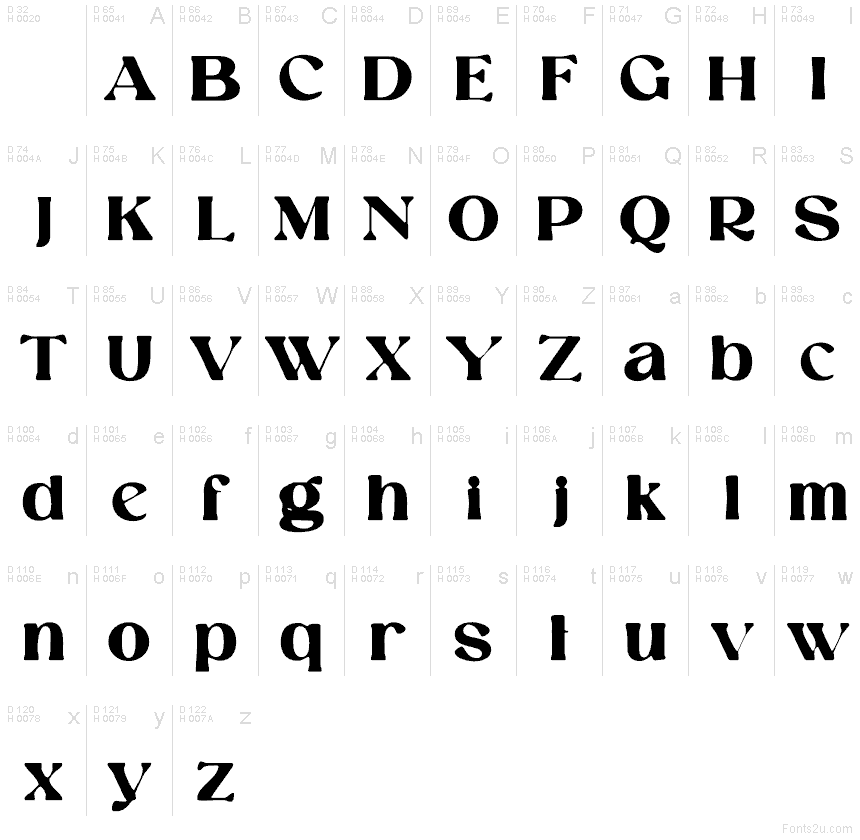
RaginyBlur-Regular Demo
Raginy font is a compelling expanded serif typeface characterized by its unusual shapes and unique rebellious spirit. Raginy is versatile, striking, and carries a vintage influence that can bring drama to any of your projects. With a strong presence visible in its bold weight, the font captivates with its visual balance between rounded serifs and unconventional letterforms.
Download this free expanded serif font for use in video game design, especially fantasy games with characters and dragons that require unique scripts. Raginy can also look great on posters dedicated to movies or plays like Romeo & Juliet, Lady Macbeth, etc. Give your branding projects new life using the typeface in logos, business cards, stationery items, packaging boxes or labels among others!